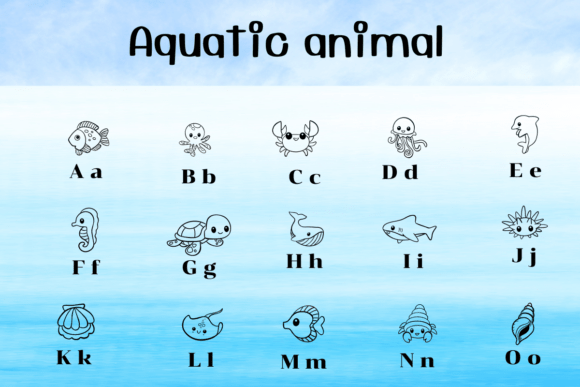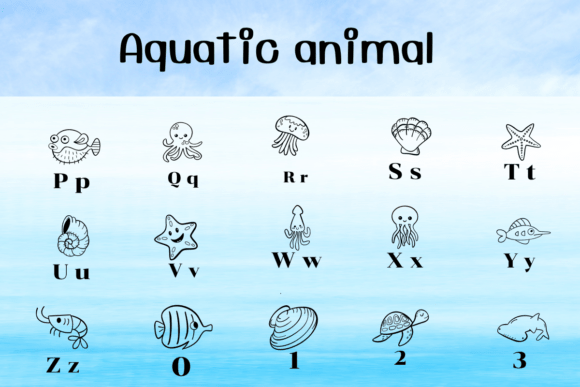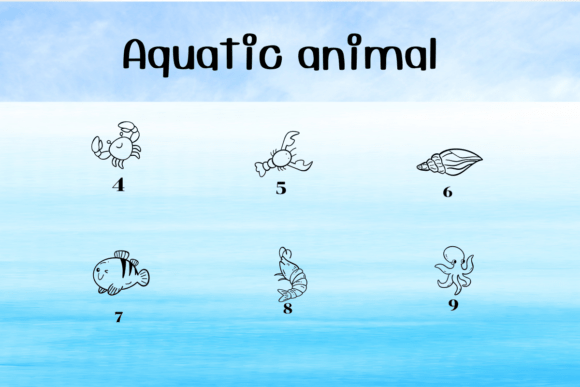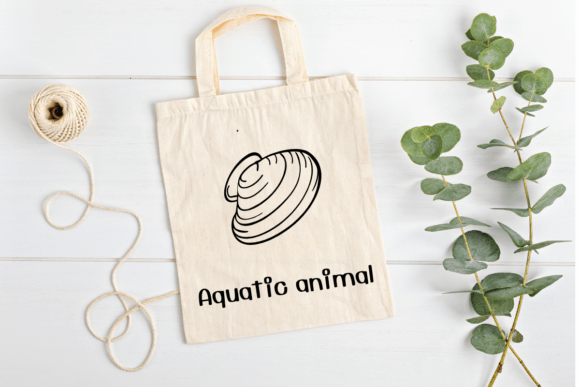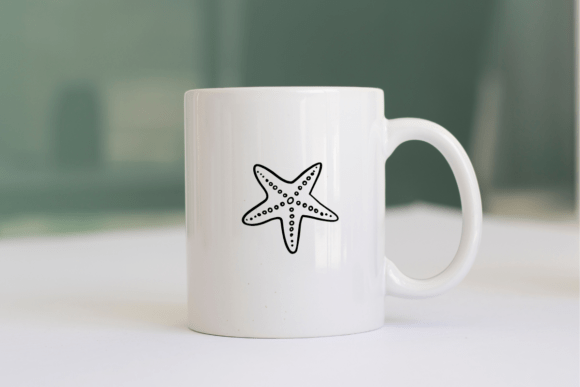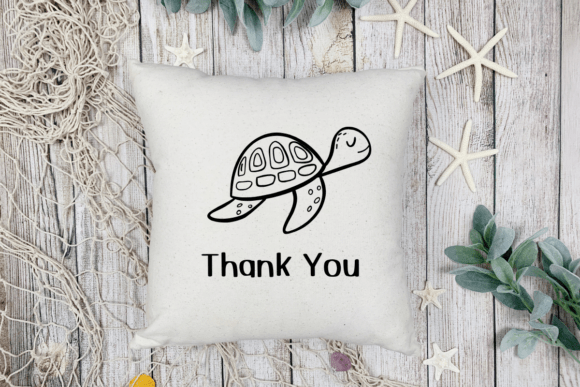
A Dive into Creativity: Discovering the Aquatic Animal Font
As I sat by the ocean, watching the waves gently lap against the shore, I couldn’t help but feel inspired by the beauty of the underwater world. The vibrant colors and diverse marine life sparked an idea for a new project – one that would bring a touch of the ocean to my designs. And that’s when I stumbled upon the perfect tool: the Aquatic Animal Font.
This charming dingbats font is designed to transport you to an underwater world of creativity. With its playful and whimsical characters, the Aquatic Animal Font is perfect for enhancing your wedding invitations, DIY projects, and crafts. Its versatility makes it an invaluable asset for designers, allowing them to add a unique touch to their designs and stand out from the crowd.
Aquatic Animal Font Key Features
- Font Family: A unique, hand-drawn font family designed to resemble aquatic animals, featuring 6 different styles: Fish, Octopus, Squid, Dolphin, Whale, and Seahorse.
- Character Set: Includes over 250 glyphs, covering a wide range of languages, including Latin, Cyrillic, and Greek alphabets.
- Unique Characteristics: Features intricate details, textures, and patterns inspired by aquatic life, making it perfect for designs related to marine biology, underwater exploration, and ocean conservation.
Aquatic Animal Font Review
Overall, I think the Aquatic Animal Font has a lot of potential, but it also has some limitations that hold it back.
- The font’s unique design, which combines elements of oceanic animals, is visually appealing and can be used to create eye-catching headlines.
- The font is highly customizable, allowing users to adjust the size, color, and spacing to suit their needs.
- The font includes a wide range of characters, including uppercase and lowercase letters, numbers, and punctuation marks.
- The font’s design can be overwhelming for large blocks of text, making it difficult to read.
- The font lacks consistency in its design, with some characters looking more polished than others.
- The font’s compatibility with certain software and systems is limited, which may cause issues for users.
Overall, I would give the Aquatic Animal Font 3 out of 5 stars. While it has some great features, its limitations hold it back from being a truly great font. With some further development and refinement, I think it has the potential to be a standout font in the design community.
Some tips for getting the most out of the Aquatic Animal Font include:
- Using the font in conjunction with ocean-themed graphics and imagery.
- Customizing the font to match the tone and style of your design.
- Experimenting with different font sizes and colors to create visual interest.
Common use cases for the Aquatic Animal Font include:
- Designing ocean-themed posters and flyers.
- Creating graphics for aquariums and marine conservation organizations.
- Developing branding and marketing materials for businesses related to the ocean and marine life.